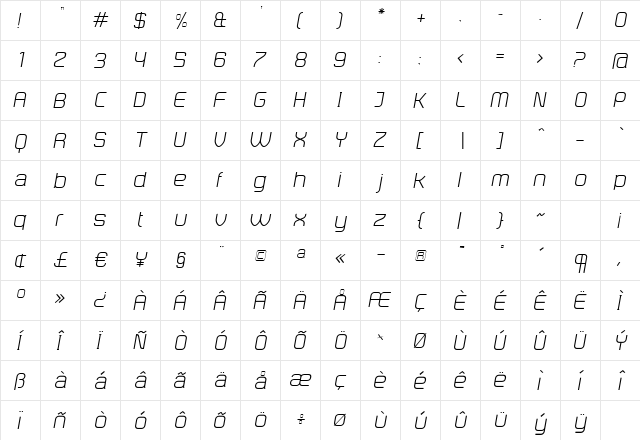
DistillaLight Italic Regular Font Preview
Design Context for DistillaLight Italic Typeface
DistillaLight Italic takes a measured approach to typography — its balanced proportions and neutral character make it a reliable workhorse for both digital and print work. The dynamic lean of this cut emphasises speed and emphasis in any layout. The delicate stroke weight brings airiness and refinement to layouts.
Pro Tip: Use DistillaLight Italic for emphasis, pull quotes, and subheadings where its slanted energy can add rhythm to the layout.